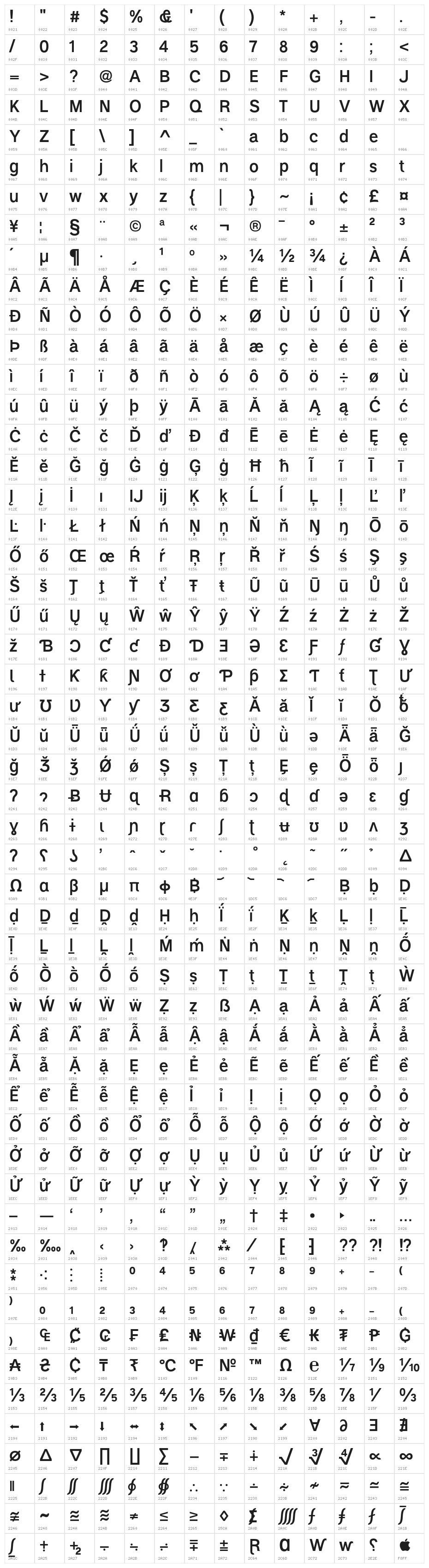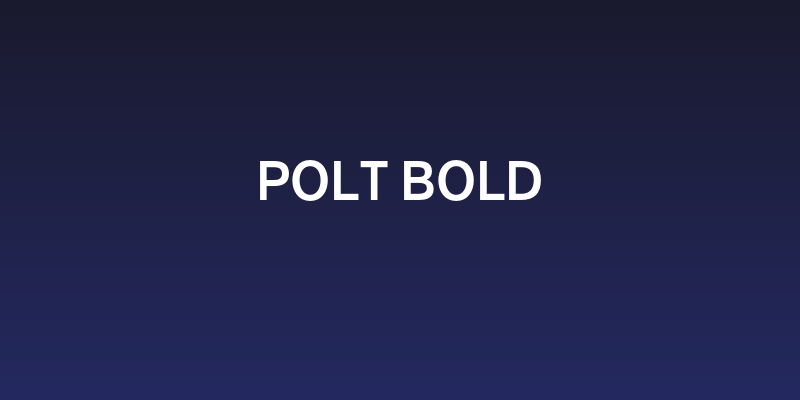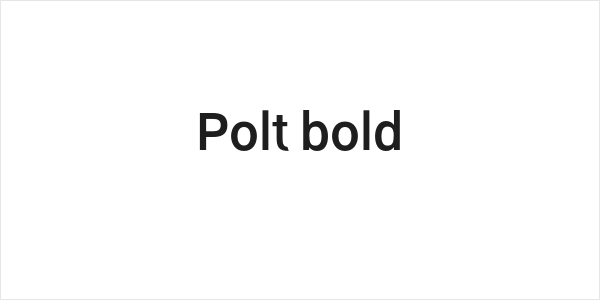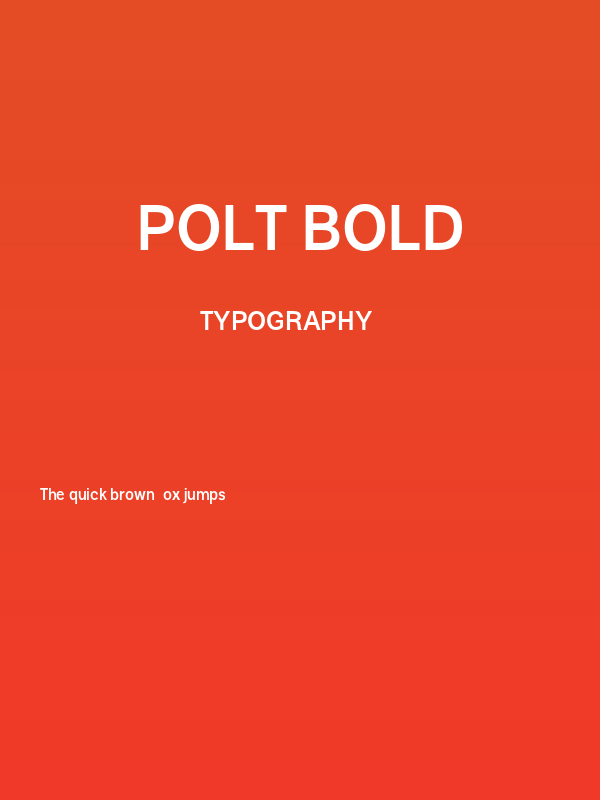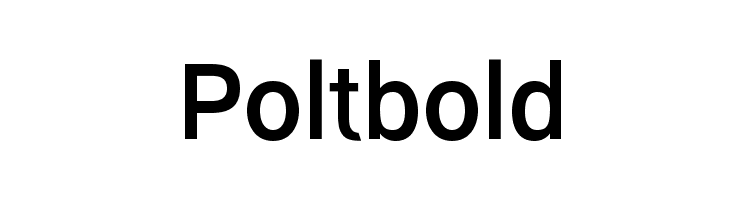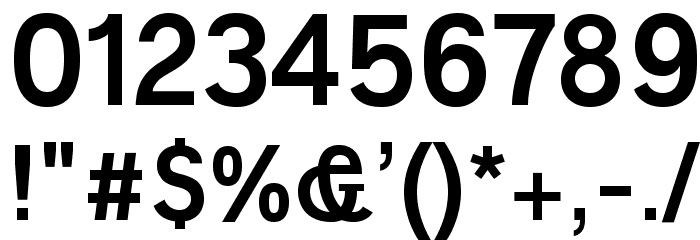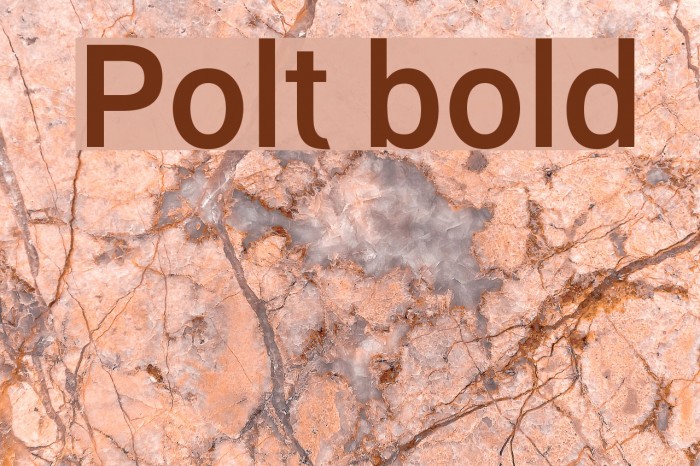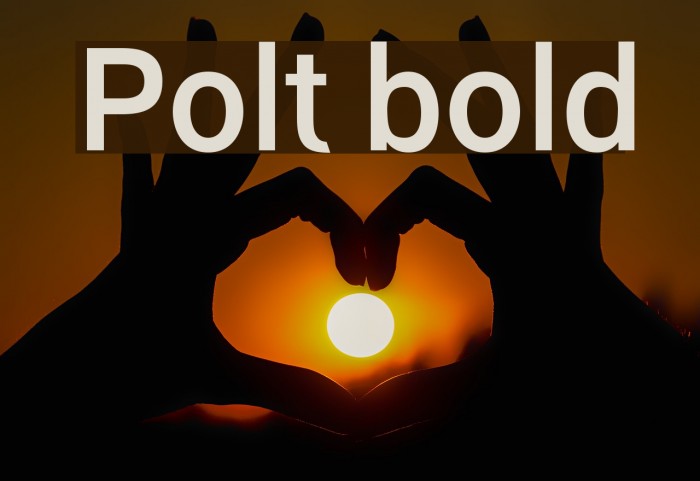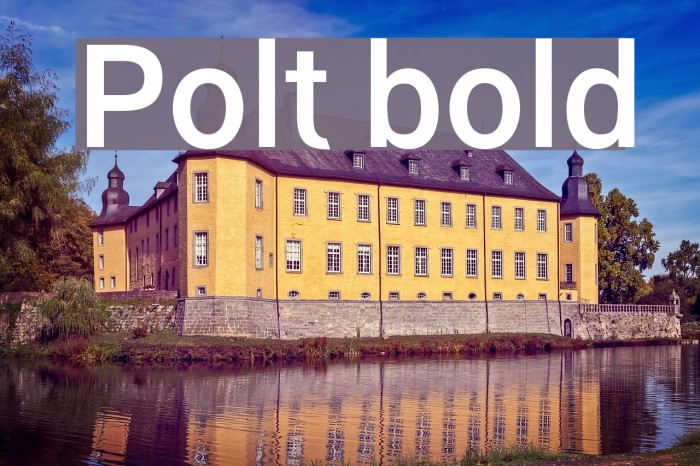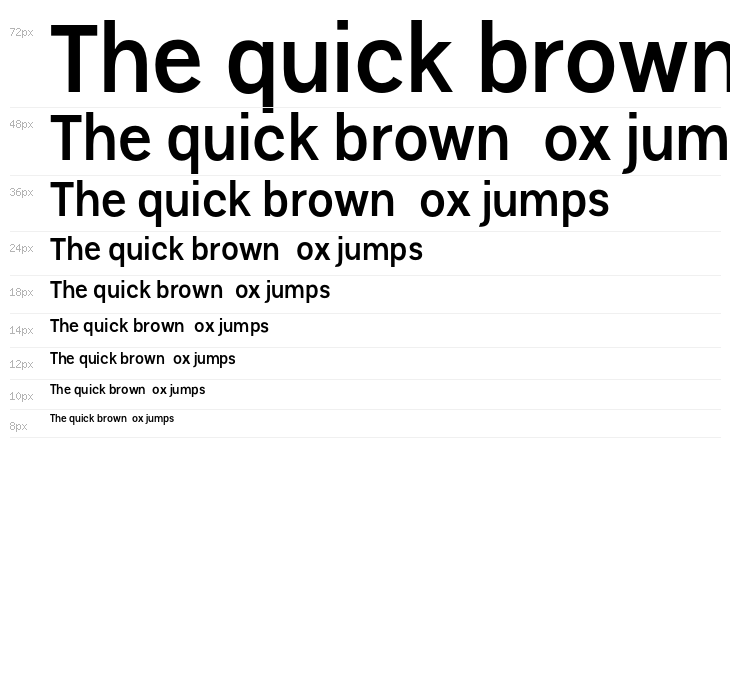
Polt bold Font
Polt bold Description
This typeface features a clean and modern sans-serif design, characterized by its bold weight and uniform stroke width. The letters are well-proportioned, with a slightly rounded appearance that adds a friendly and approachable feel. The uppercase and lowercase characters maintain a consistent style, ensuring readability across various sizes. The numerals are clear and distinct, making them suitable for both display and text purposes. Special characters are included, providing versatility for different design needs. Overall, this font exudes a contemporary aesthetic, making it ideal for modern branding and communication.
| Proposed Projects | Ideal for branding, advertising, headlines, and digital content where a modern and bold statement is needed. |